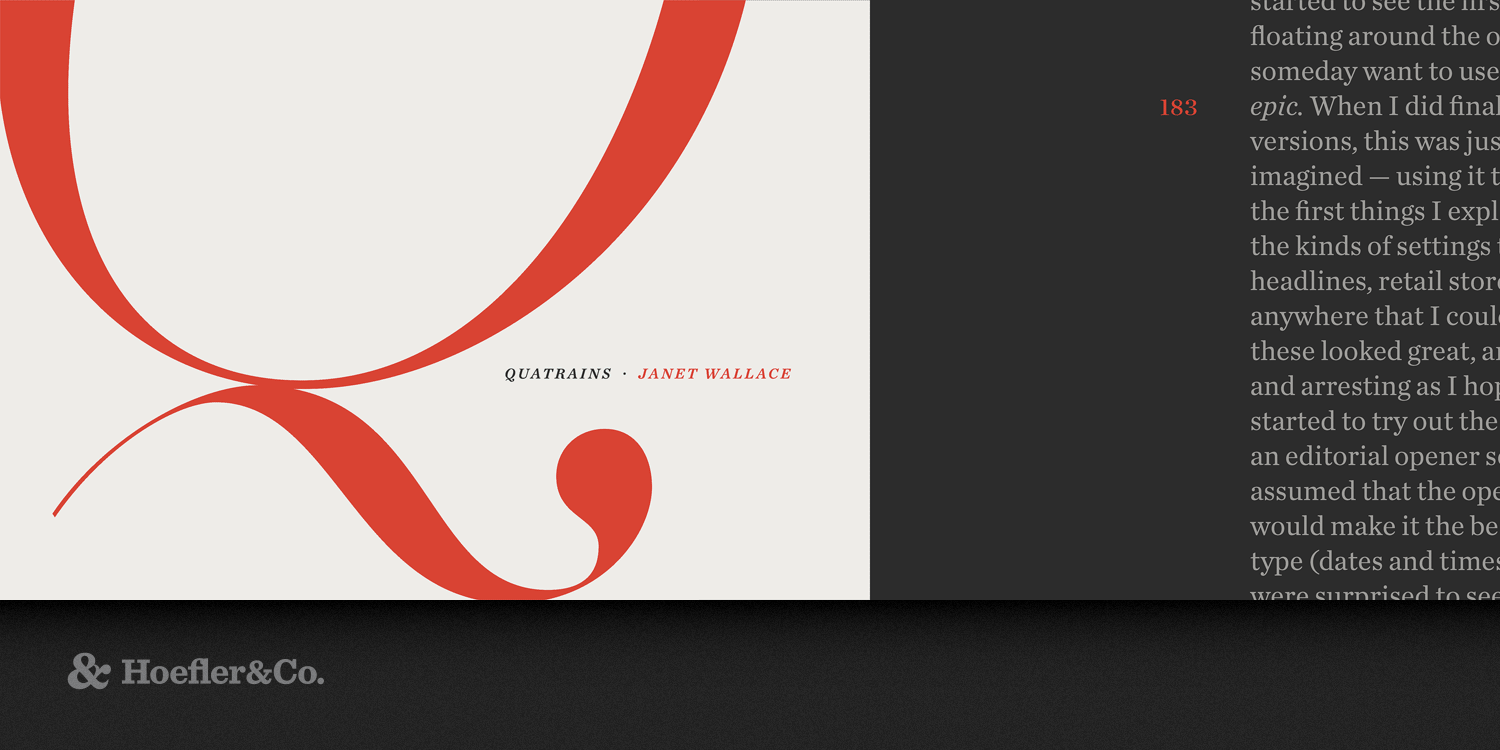
Chronicle Display Font is perfect for newspaper headlines, magazine mastheads, editorial design, literary publications, historical documentaries, prestigious award ceremonies, classical concert programs, academic journals, luxury book covers, and any projects that require authoritative typography with journalistic gravitas and editorial excellence.
What makes Chronicle Display Font exciting is its masterful revival of classical newspaper typography that combines the authority of traditional journalism with contemporary refinement for modern editorial applications. This distinguished typeface features robust letterforms with sharp serifs and excellent contrast that command attention while maintaining exceptional readability at large sizes. The font's editorial heritage makes it perfect for publications seeking to establish credibility, gravitas, and the timeless authority of quality journalism in their visual communications.
Chronicle Display Font family includes comprehensive editorial weights featuring roman, italic, condensed, and compressed versions. The font family also offers various optical sizes optimized for different display applications, along with swash alternates and stylistic sets that enhance typographic sophistication. Special features include old style figures, small caps, and extensive language support designed specifically for international publishing and editorial excellence.